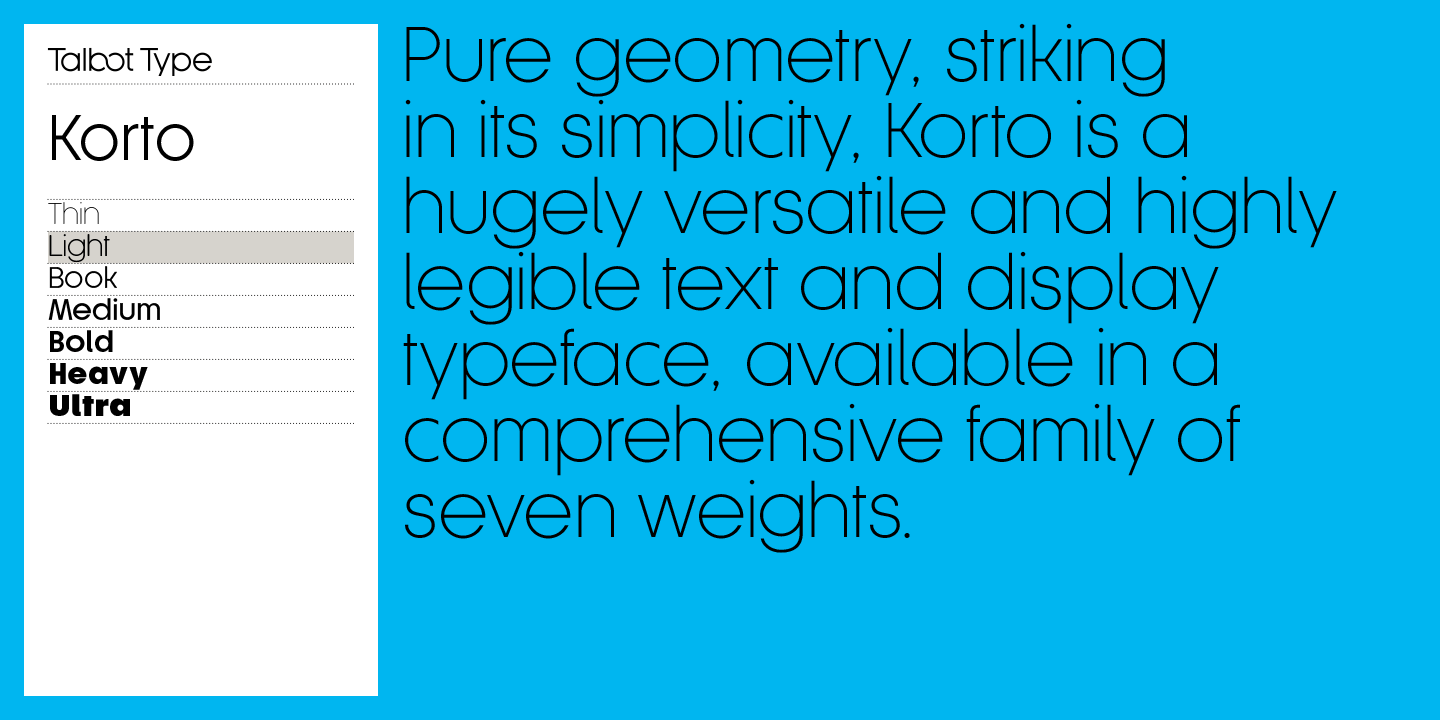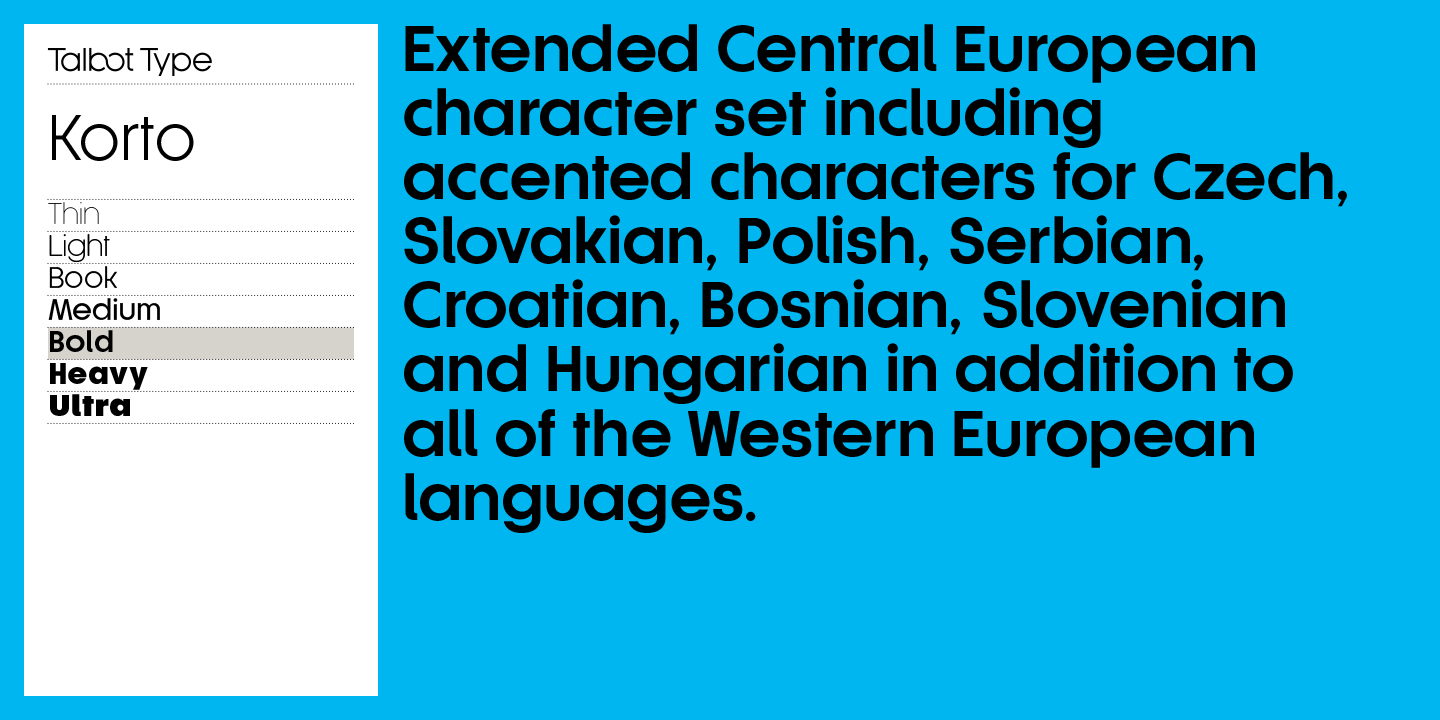
Korto is a highly legible, geometric text and display font. Inspired by classic sans-serifs Futura and Avant Garde, this elegantly minimal typeface is available in a comprehensive family of seven weights. It includes old style non-aligning (lower case) numbers, both proportional and tabular, as well as accented characters for Central European languages. A highly versatile, contemporary sans-serif, Korto is suitable for more-or-less any text or display purpose.